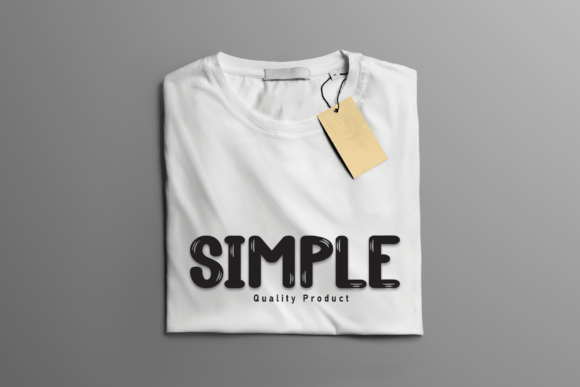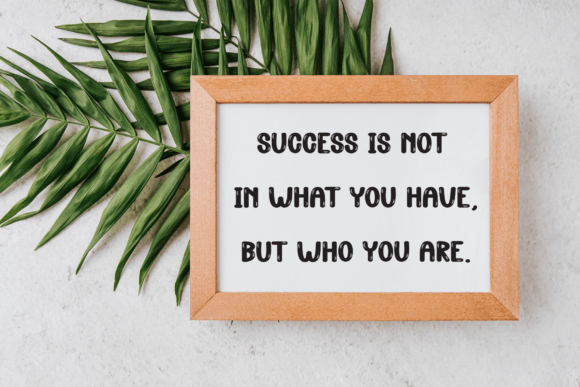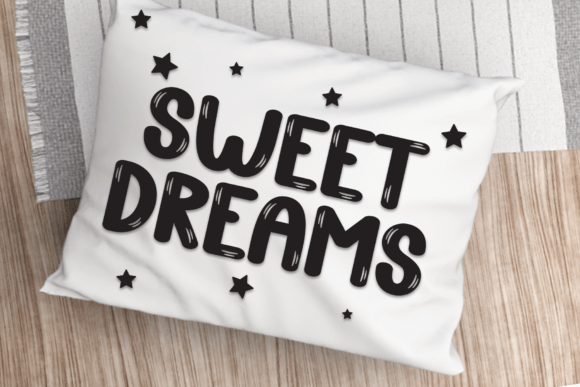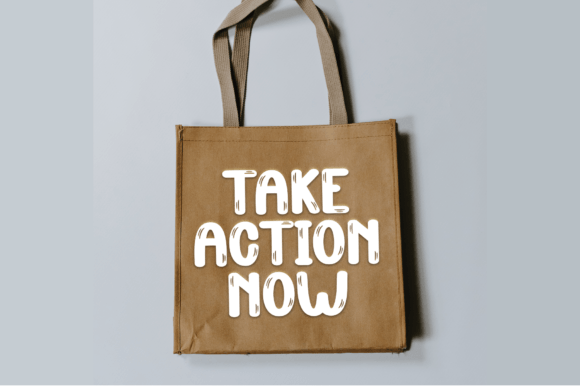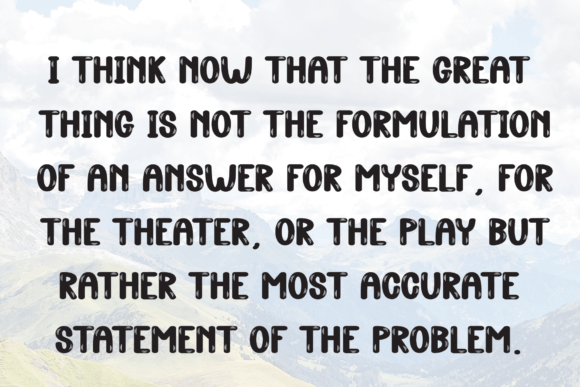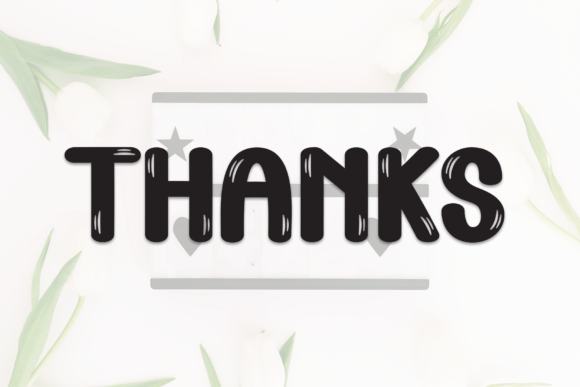
The Perfect Font for Your Next Design Project
Have you ever found yourself staring at a blank page, trying to decide on the perfect font to bring your creative vision to life? It’s a feeling many designers can relate to, and it’s exactly what inspired us to explore the world of unique and charming fonts. One font that caught our attention is the Charming Alphabet Font, a delightful collection of letters that add a touch of whimsy and personality to any design.
The Charming Alphabet Font is a carefully crafted typeface designed to help designers add a playful twist to their work. With its elegant curves and charming details, this font is perfect for creating eye-catching headings, logos, and other visual elements that demand attention. Whether you’re working on a children’s book, a wedding invitation, or a brand identity, the Charming Alphabet Font is a valuable addition to any designer’s toolkit.
Key Features of Charming Alphabet Font
- Character Set: The font includes a full set of uppercase and lowercase letters, numbers, punctuation marks, and special characters, making it suitable for a wide range of applications.
- Unique Characteristics: The Charming Alphabet Font features a hand-drawn, whimsical design with subtle flair and elegance, perfect for adding a touch of personality to your designs.
- Font Style: The font comes in Regular, Bold, and Italic styles, allowing you to customize the look and feel of your text to suit your design needs.
Designer Review: Charming Alphabet Font
Overall, I have mixed feelings about the “Charming Alphabet Font”. While it has its charming aspects, it also has some limitations that might make it less suitable for certain projects.
- Unique and playful design: The font has a distinctive, whimsical feel that can add a touch of personality to your designs.
- Good legibility: Despite its decorative nature, the font remains easy to read, even at smaller sizes.
- High-resolution quality: The font looks great at various resolutions, from web to print.
- Limited font sizes: The font’s design might not be suitable for larger font sizes, where its playful nature could become overwhelming.
- Not ideal for body text: While the font works well for headings and titles, it’s not the best choice for large blocks of body text.
Overall, the “Charming Alphabet Font” is a great choice for projects that require a unique, eye-catching design element. However, it might not be the best fit for projects that require a more conservative or professional look.
Getting the Most Out of the Charming Alphabet Font
To get the most out of the Charming Alphabet Font, try using it in creative ways such as:
1. Creating a whimsical title or heading.
2. Adding a touch of elegance to a wedding invitation or menu.
3. Designing a children’s book or nursery decoration.
The Charming Alphabet Font is perfect for:
2. Children’s book illustrations and design.
3. Branding and